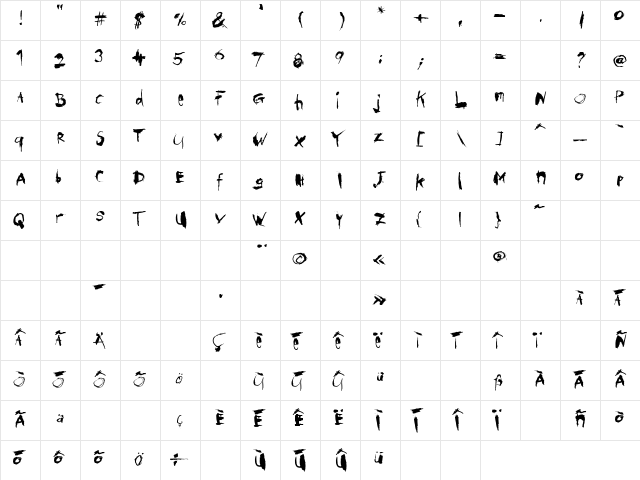
institut Regular
Design Context for institut Typeface
institut is a composed and adaptable typeface that performs quietly and consistently across a wide range of design contexts.